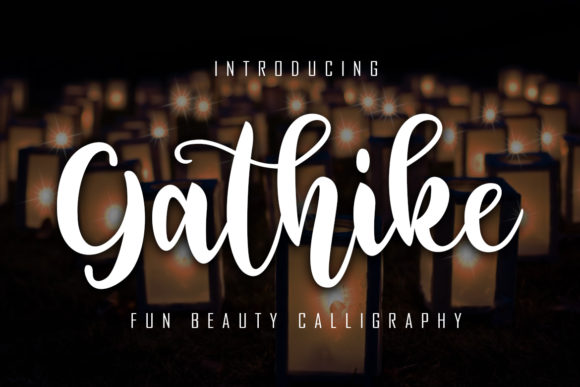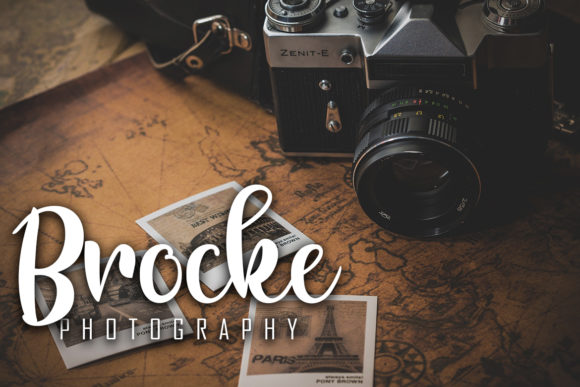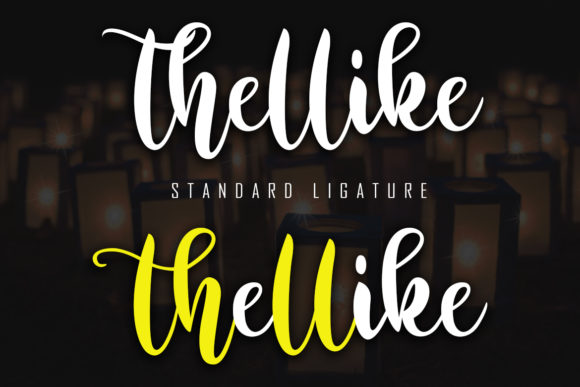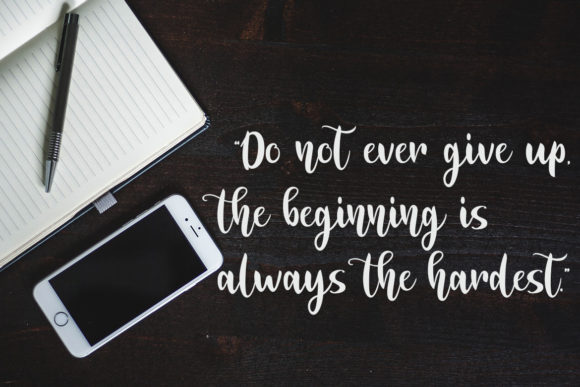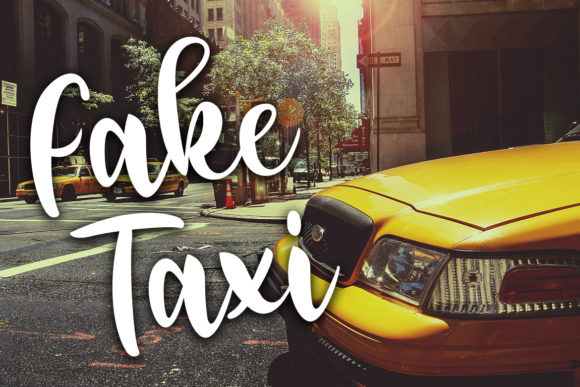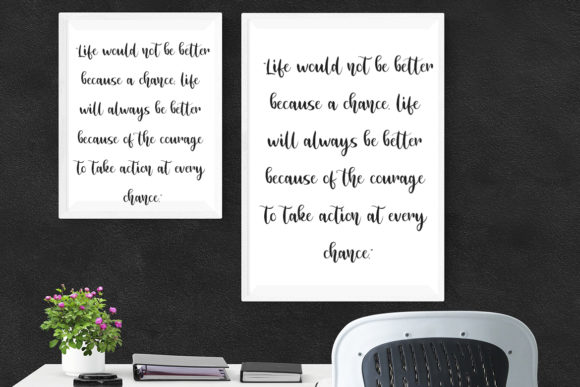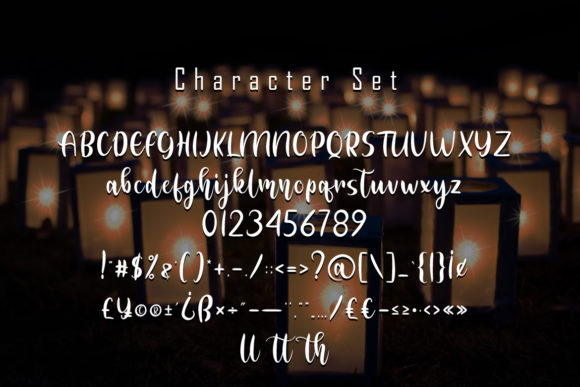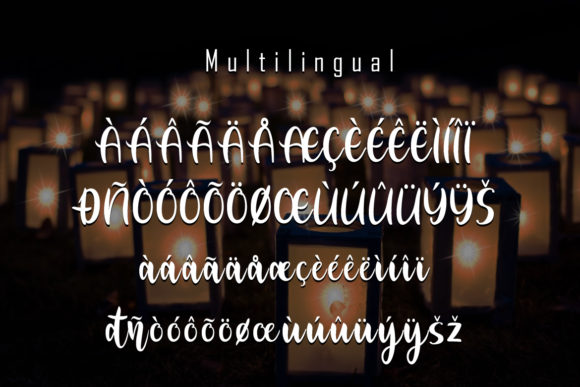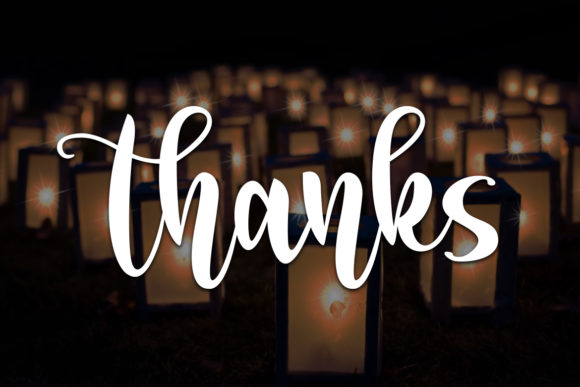
Gathike Font
About Gathike Font
Gathike is a bold handwritten font, carefully handcrafted to become a true favorite. Its casual charm makes it appear wonderfully down-to-earth, readable and, ultimately, incredibly versatile. Gathike will look outstanding in any context, whether it’s being used on busy backgrounds or as a standalone headline!